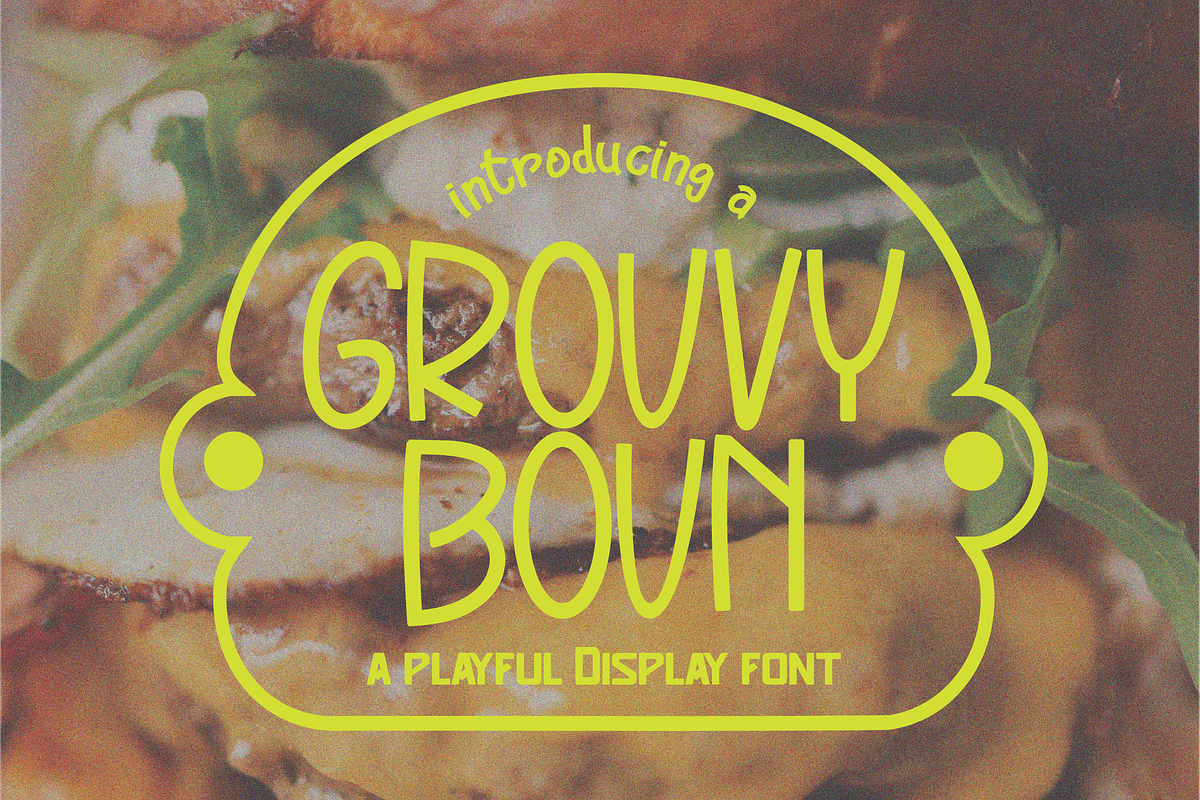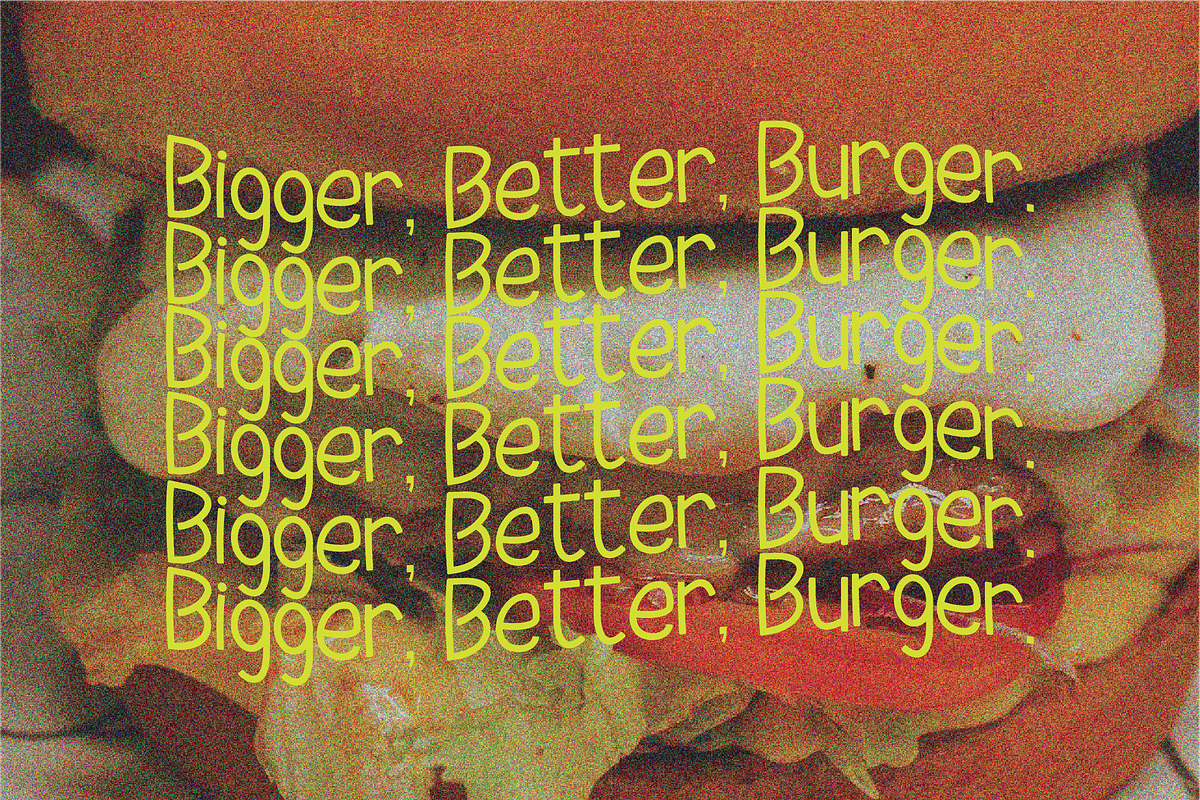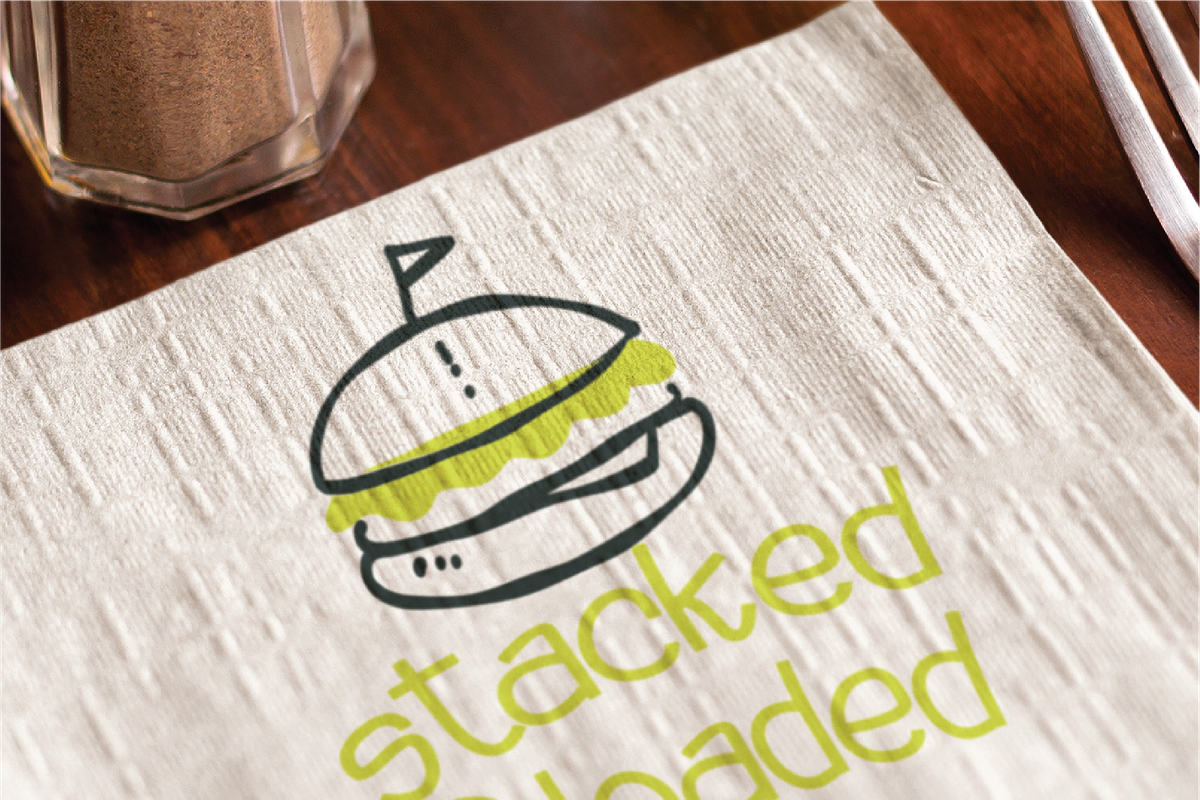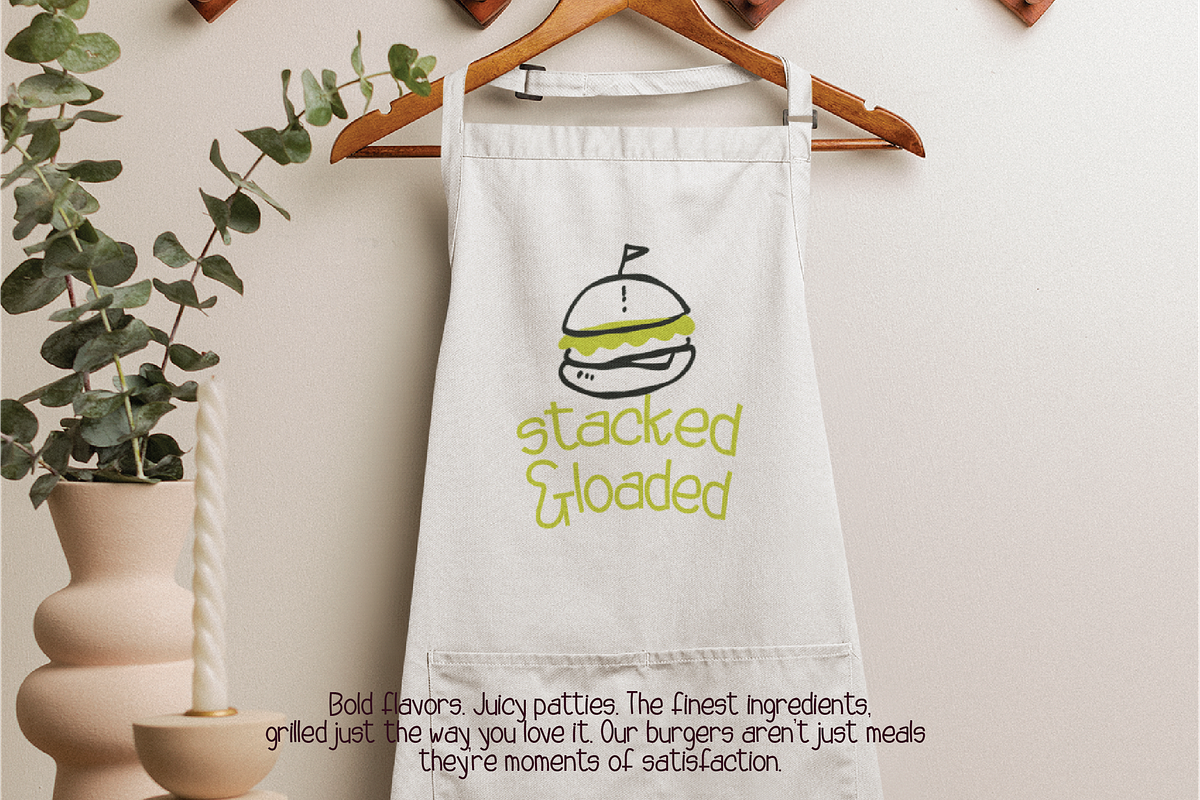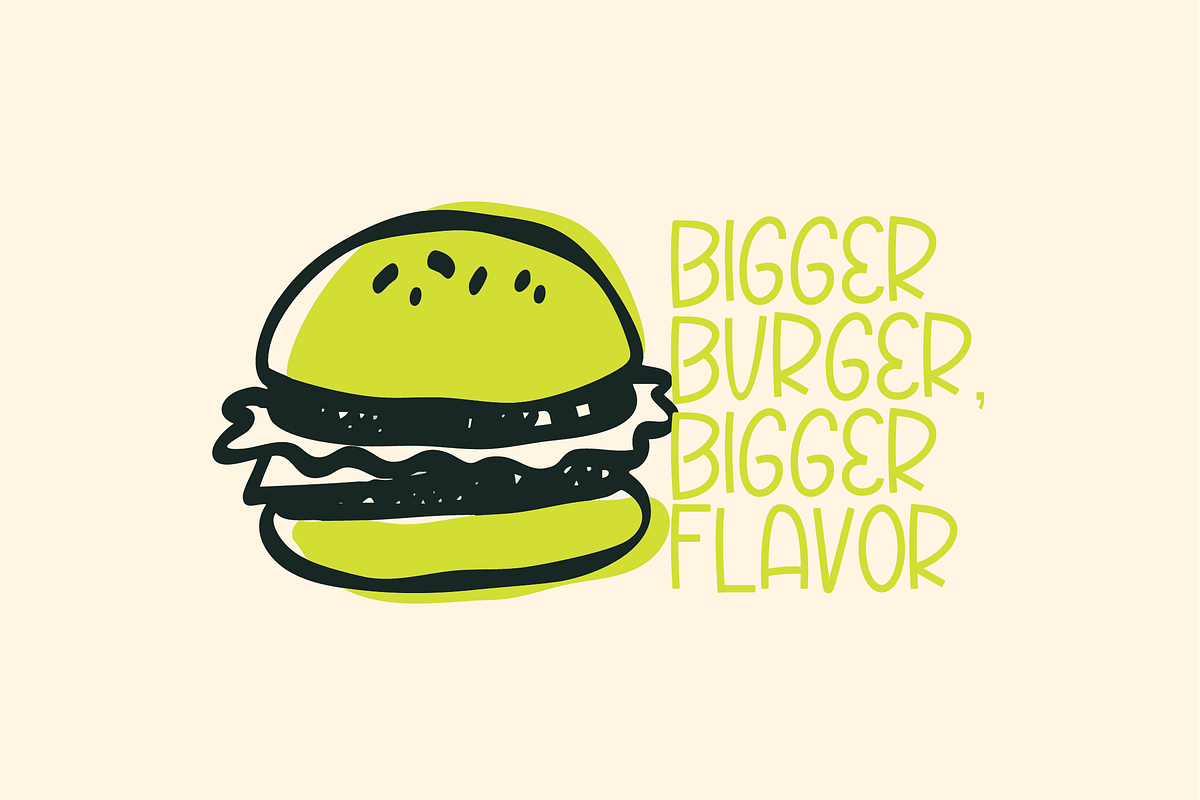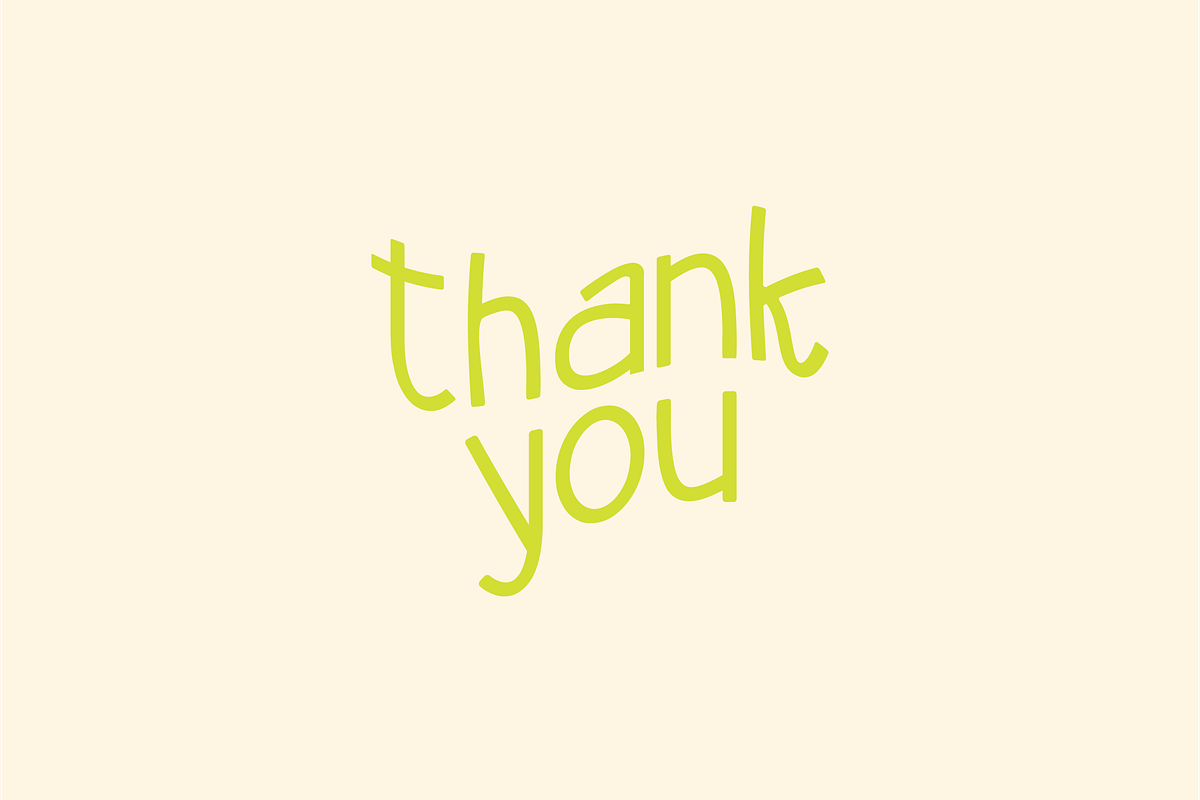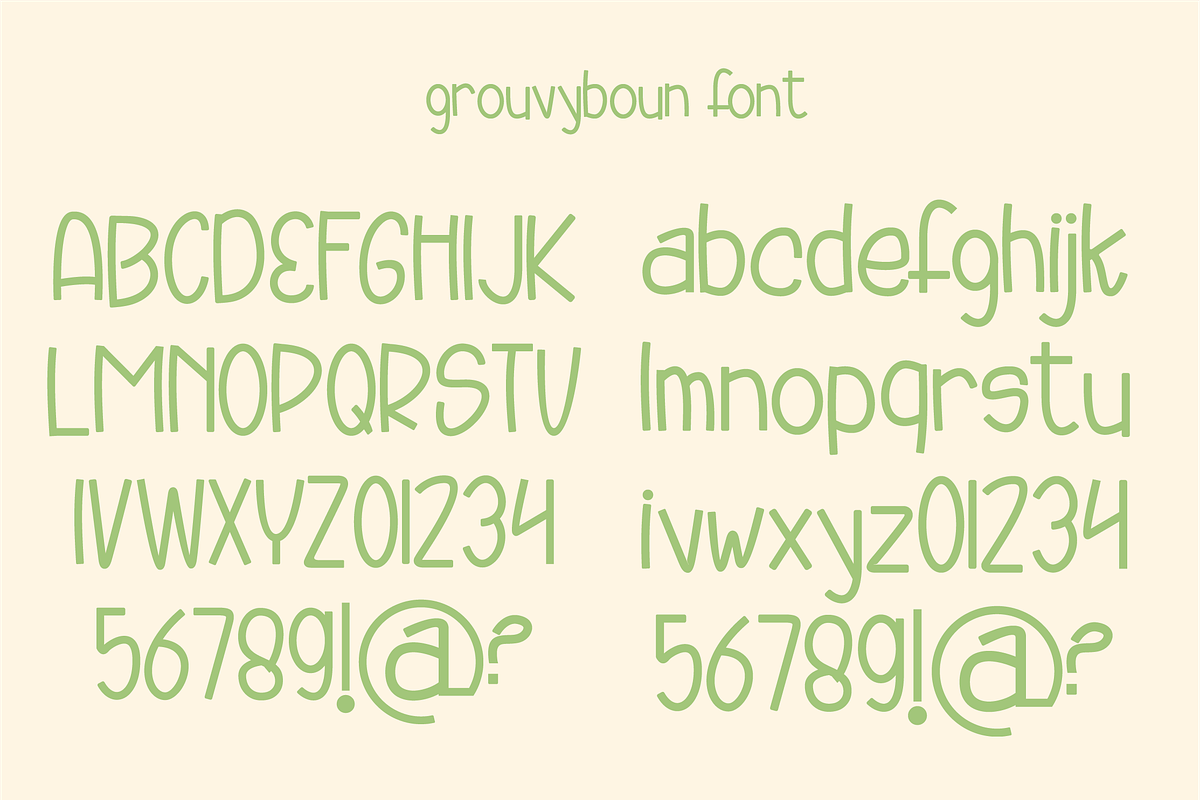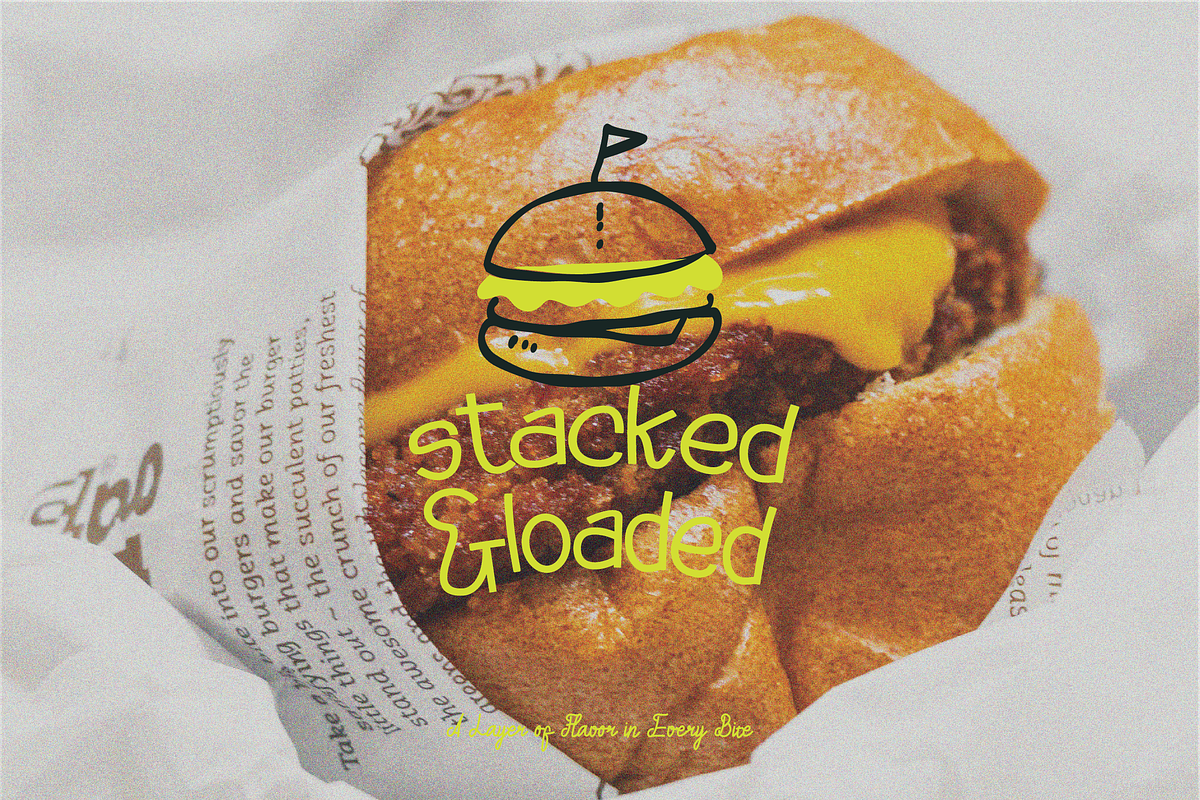
Grouvyboun - Playful Display Font
Grouvyboun The font has a bold, playful, and energetic style with rounded, bubbly letterforms. The letters appear loose and dynamic, giving off a retro, groovy vibe. There are slight irregularities in the shapes of the letters, making the text feel lively and youthful, with a hint of 60s/70s influence.